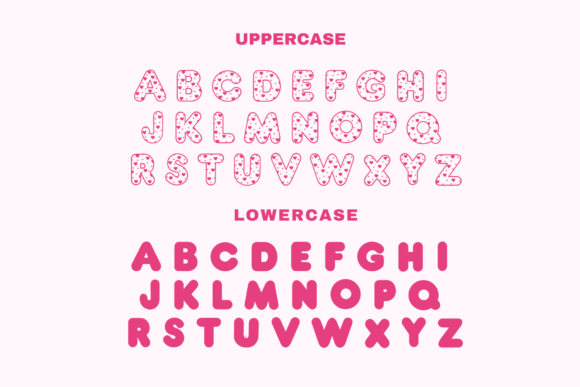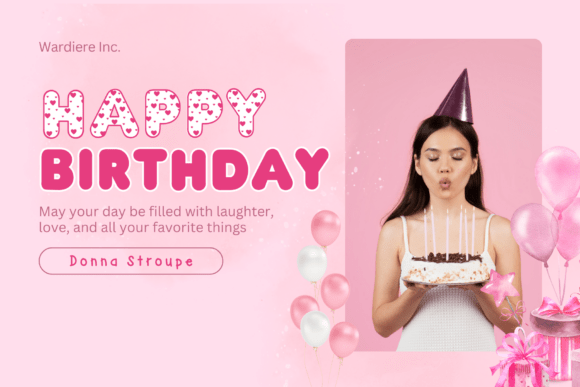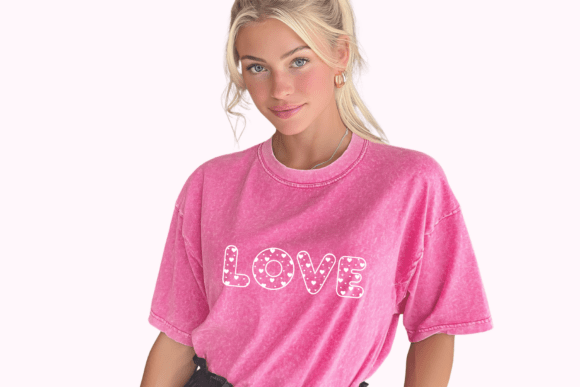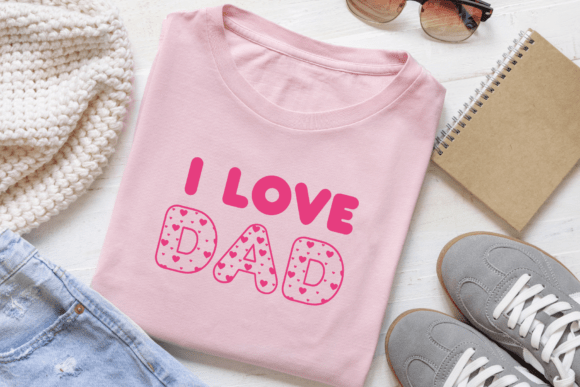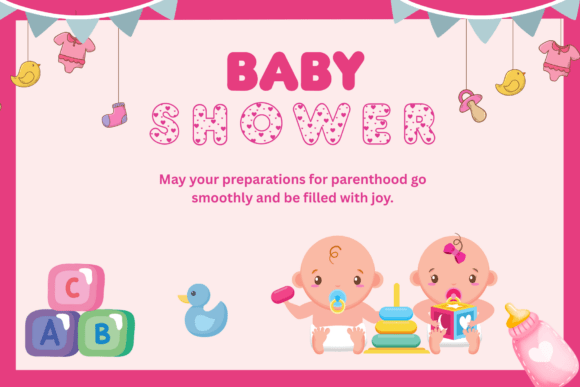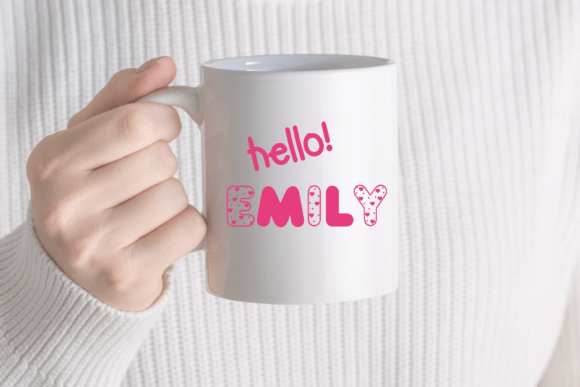
Introduction to Kawaii Heart Font
This adorable heart-pattern font brings a cute and playful charm to every project.
With bold bubbly letters filled with tiny hearts, itโs perfect for Valentineโs Day designs, greeting cards, stickers, childrenโs projects, branding, social media posts, and all things sweet Add a lovely, fun, and cheerful touch to your creative work with this kawaii-style font.